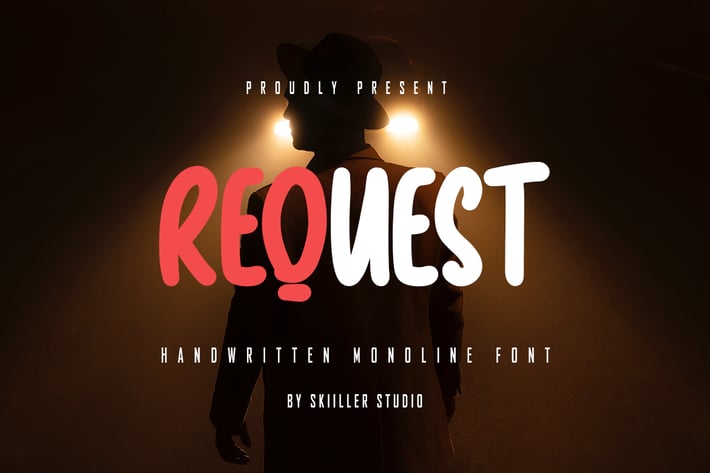
Request - Handwritten Monoline Font
Request is a Playful Handwritten Font, crafted to give your headlines and logotype projects a stylish touch. This font reads as strong, confident, and dynamic and can add tons of urban character to your designs.